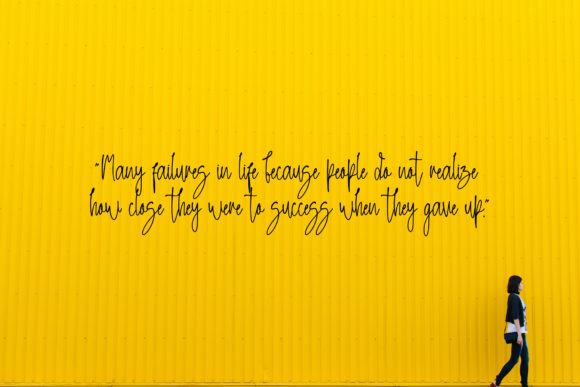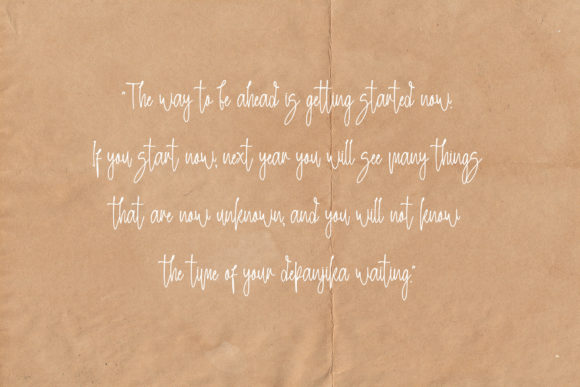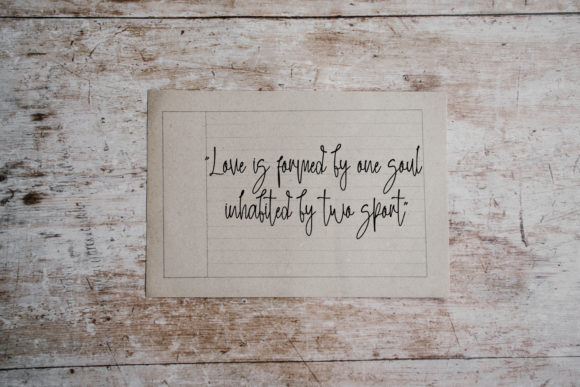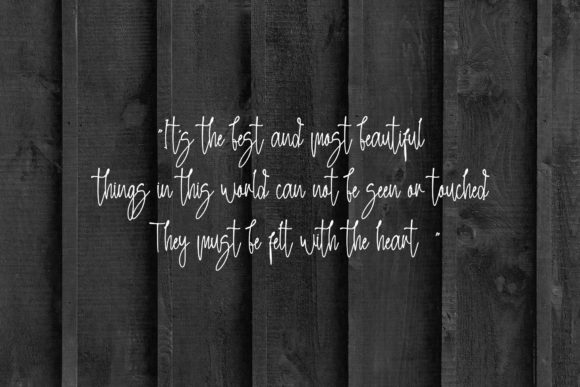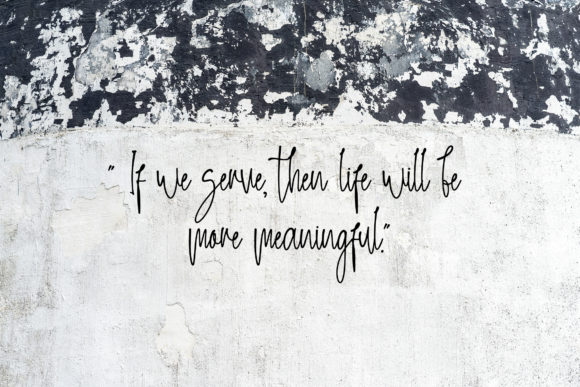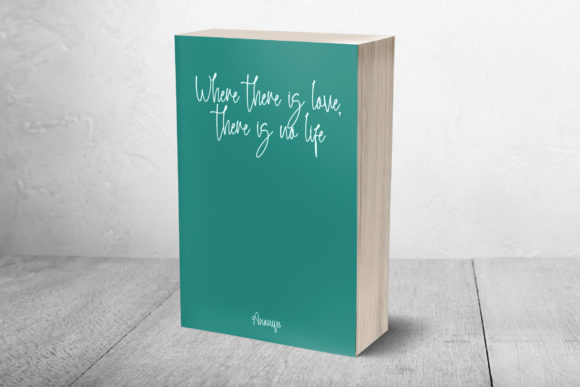
Discover the Elegance of Amarti Satra Font: A Versatile Script Font for Designers and Crafters
In the world of typography, a well-crafted font can elevate a design from ordinary to extraordinary. For designers and crafters seeking a script font that exudes elegance and sophistication, Amarti Satra Font is an excellent choice. This beautiful, thin script font is perfect for a wide range of applications, from logos and wedding invitations to headings, t-shirts, and more.
The Characteristics of Amarti Satra Font
Amarti Satra Font is characterized by its thin, flowing lines and casual yet elegant touch. Its script style is reminiscent of handwritten calligraphy, making it perfect for designs that require a personal and sophisticated feel. The font’s versatility is one of its most significant advantages, allowing designers to use it for various purposes, including:
- Logos: Create a lasting impression with a custom logo that showcases your brand’s personality.
- Wedding Invitations: Add a touch of romance and elegance to your wedding stationery.
- Headings: Elevate your website, blog, or social media graphics with eye-catching headings.
- T-shirts: Design custom apparel that makes a statement.
- Letterhead: Create professional-looking letterheads for your business or personal correspondence.
- Signage: Make a lasting impression with eye-catching signs and banners.
- Labels: Design custom labels for your products or gifts.
- News: Add a touch of elegance to your news articles or blog posts.
- Posters: Create stunning posters that grab attention.
- Badges: Design custom badges for events, conferences, or awards.
Why Choose Amarti Satra Font?
So, what sets Amarti Satra Font apart from other script fonts? Here are a few reasons why designers and crafters love this font:
- Elegance and Sophistication: Amarti Satra Font exudes elegance and sophistication, making it perfect for designs that require a high-end feel.
- Versatility: This font can be used for a wide range of applications, from digital designs to print materials.
- Easy to Read: Despite its thin lines, Amarti Satra Font is easy to read, making it perfect for body text and headings.
- Unique and Creative: This font has a unique and creative feel, allowing designers to add a personal touch to their designs.
Tips for Using Amarti Satra Font
To get the most out of Amarti Satra Font, here are a few tips to keep in mind:
- Pair it with a sans-serif font: Pair Amarti Satra Font with a sans-serif font to create a beautiful contrast.
- Use it for headings and titles: Amarti Satra Font is perfect for headings and titles, making it ideal for designs that require a touch of elegance.
- Experiment with colors and textures: Don’t be afraid to experiment with different colors and textures to add depth and interest to your designs.
Amarti Satra Font is a versatile and elegant script font that is perfect for designers and crafters seeking a sophisticated and creative font. With its thin lines, casual yet elegant touch, and wide range of applications, this font is sure to become a favorite in your design arsenal. Whether you’re designing logos, wedding invitations, headings, or more, Amarti Satra Font is an excellent choice.